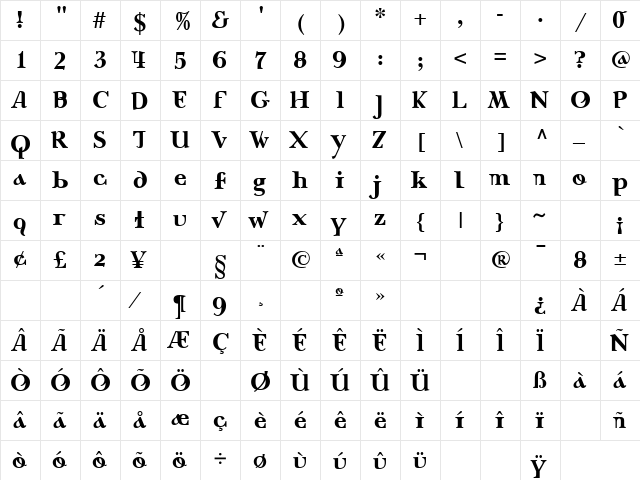
CaseSeraSeraBold Regular
Design Context for CaseSeraSeraBold Typeface
CaseSeraSeraBold is a composed and adaptable typeface that performs quietly and consistently across a wide range of design contexts. The heavy weight commands attention and anchors typographic hierarchies.